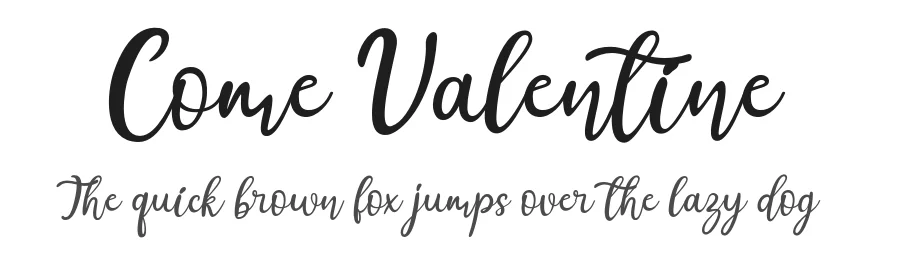
About Valentie Font
Valentie is a script & handwritten font designed by Bodigstd. It includes 183 glyphs, a regular weight, OTF (CFF) format, and 208 languages. Valentie is free to download; check the license details on this page before commercial use. Script & handwritten fonts like Valentie work best for wedding invitations, greeting cards, signatures, and elegant branding.
Valentie Font is a script font that shines as a display or heading face. Pair it with a clean sans-serif or serif font for body text β the contrast creates a clear hierarchy while the two styles stay balanced and easy to read.
Valentie Font
by Bodigstd
Valentie Font is a script handwritten typeface by Bodigstd, ideal for logos, invitations, branding, and creative projects.